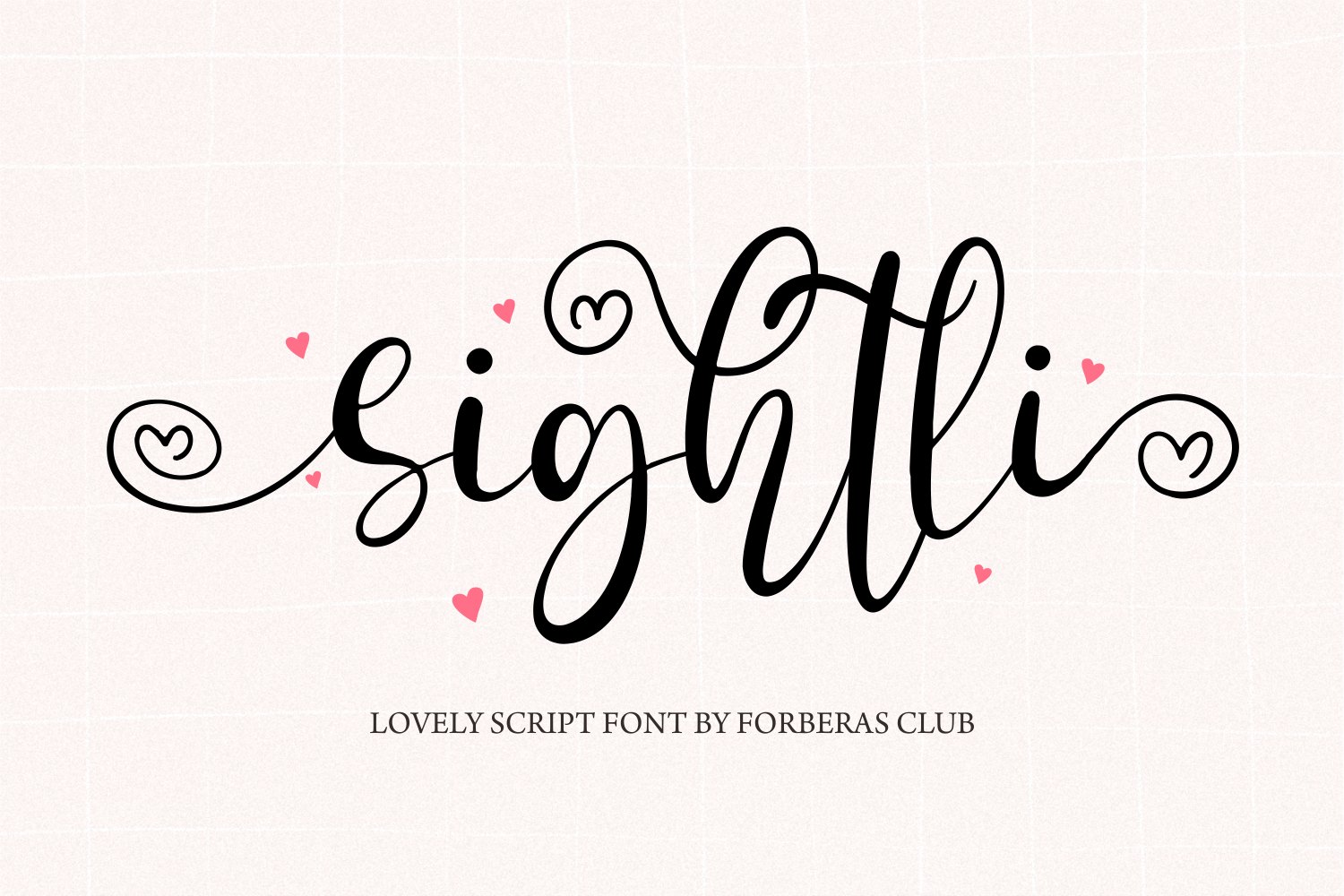
Sightli | Script Handwritten Font
Introducing Sightli by Forberas
Modern and beautiful handwritten script font! Great for wedding greeting cards, logos, branding materials, Invitation, business cards, quotes, posters, Cricut artwork and more!